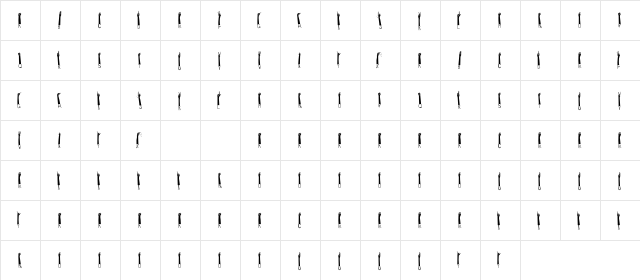
Handey Inner
Design Context for Handey Typeface
Handey flows with the natural rhythm of handwritten lettering, making it ideal for designs that call for warmth and personal expression.
Font Pairing: Combine Handey with a simple geometric sans for maximum contrast — the tension between flowing curves and clean structure is a classic typographic pairing.
Pro Tip: Use Handey for short runs of text — names, titles, or taglines. Extended body copy in script faces tires the eye quickly.